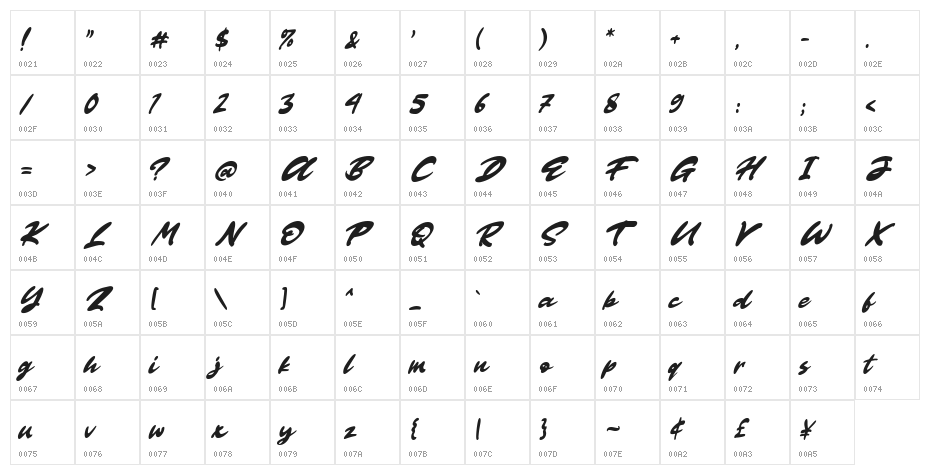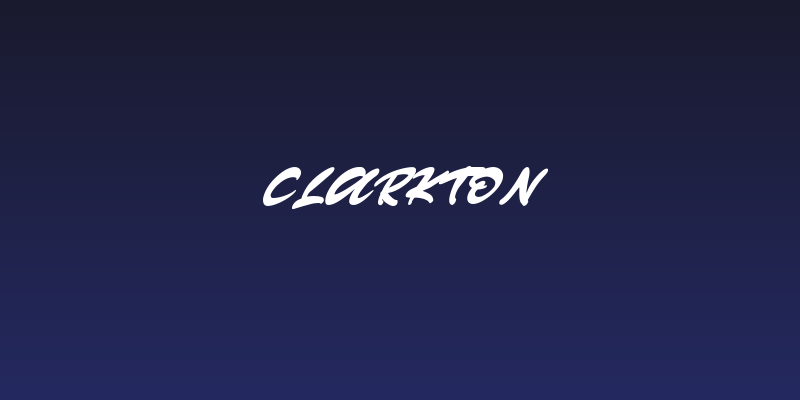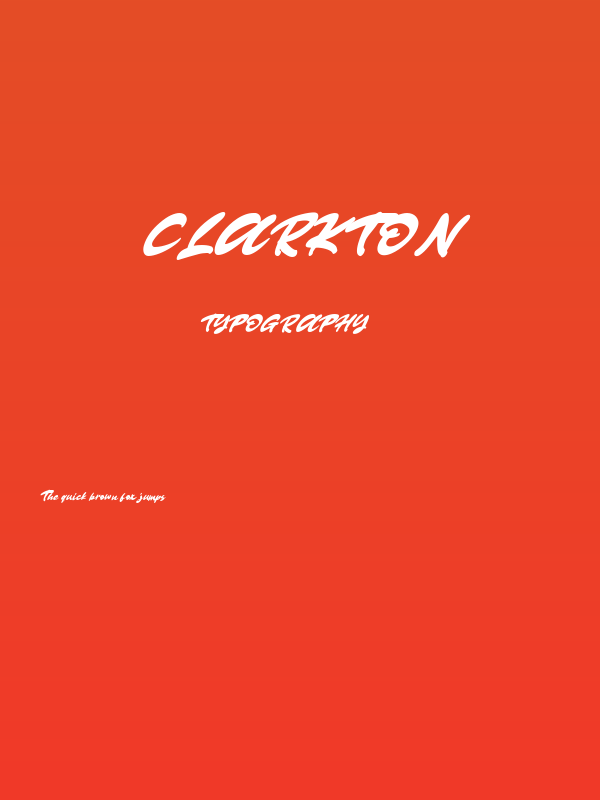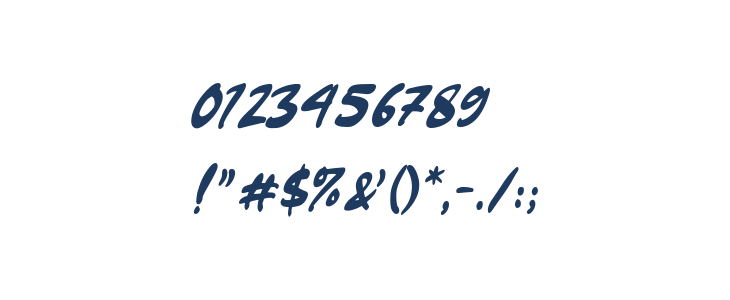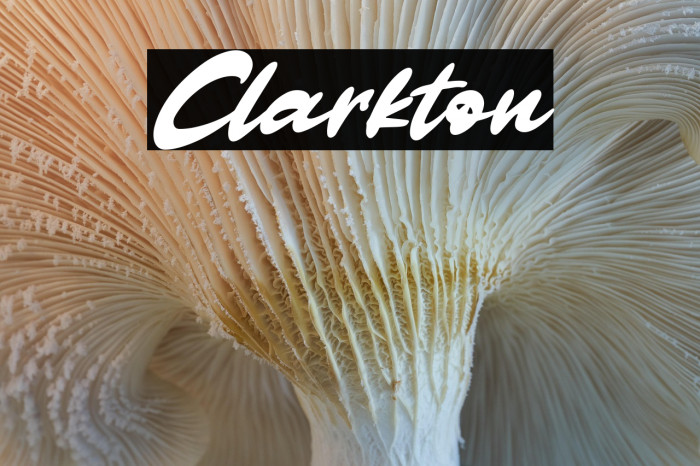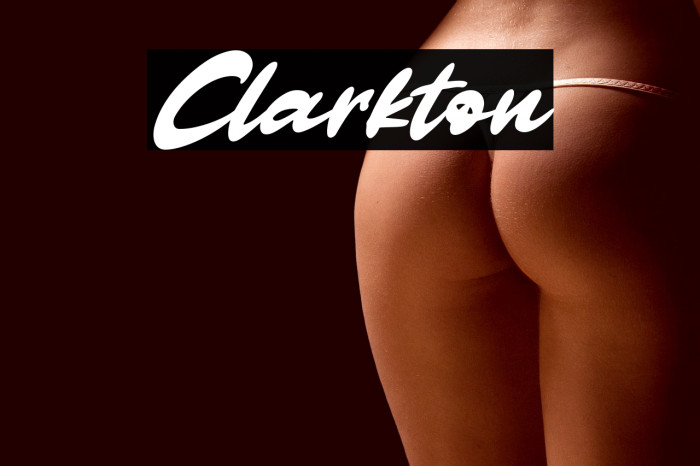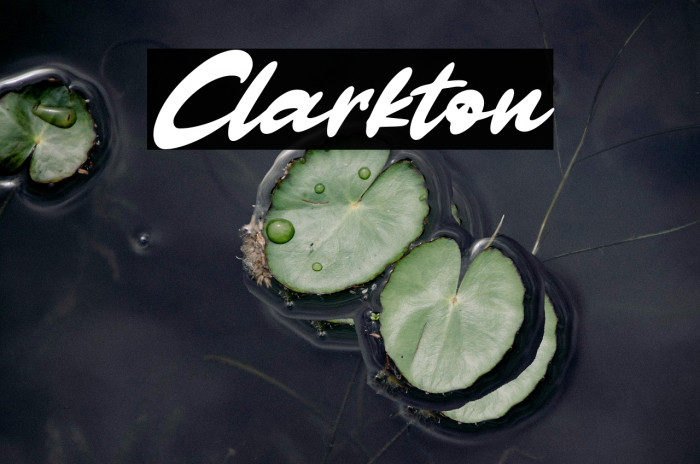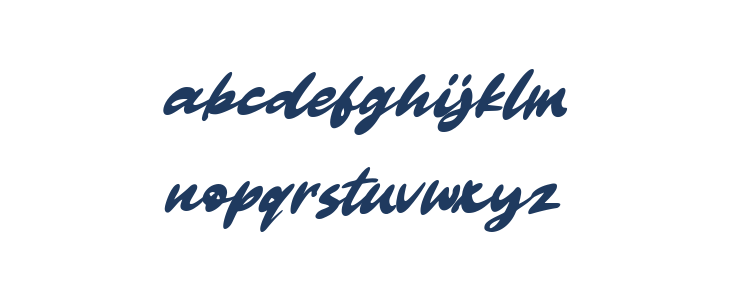
Clarkton Font
Clarkton Description
This font exhibits a bold and dynamic script style, characterized by its fluid and connected letterforms. The strokes are thick and consistent, providing a strong visual impact. The uppercase letters are slightly slanted, adding a sense of motion and elegance, while the lowercase letters maintain a cohesive flow. The numerals and special characters follow the same stylistic approach, ensuring uniformity across all glyphs. This font's energetic and expressive nature makes it suitable for designs that require a personal touch or a sense of movement.
| Proposed Projects | Ideal for branding, logos, invitations, and any project needing a personal, expressive touch. |